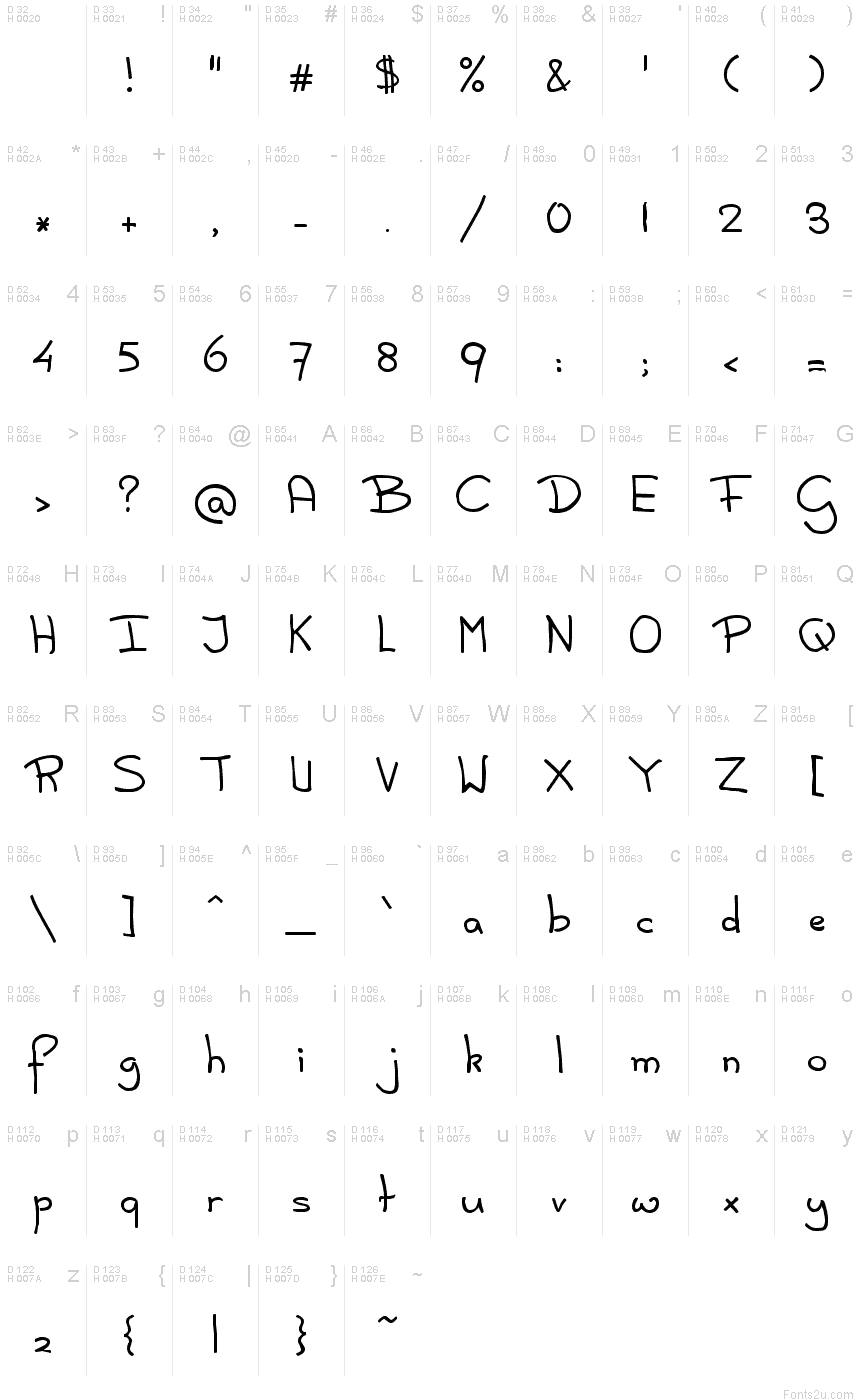
Scratchpad Medium
Scratchpad font by CompuWorks is a free handwritten typeface that looks like quick notes jotted with a smooth black marker. The letters are tall, relaxed, and slightly bouncy, giving you that casual, human touch without sliding into messy or childish. Strokes feel confident and fluid, so your text reads like a friendly reminder on a whiteboard—informal, but still clear and trustworthy.
Using Scratchpad, this free font shines on planners, digital notebooks, educational worksheets, social media posts, informal branding, sticky-note style graphics, and friendly UI labels. Its even spacing and consistent rhythm make longer phrases easy to skim, while the quirky curves keep things warm and conversational. For a simple pairing trick, use Scratchpad for headings and callouts, and match it with a clean sans serif for body copy.